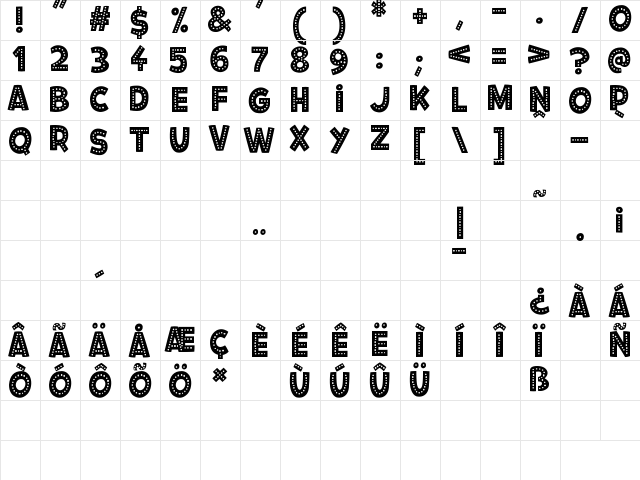
Fiesta Rumba Regular Free Font
Fiesta Rumba Regular
Designer: IMAGEX
Design Context for Fiesta Rumba
Fiesta Rumba is a composed and adaptable typeface that performs quietly and consistently across a wide range of design contexts.